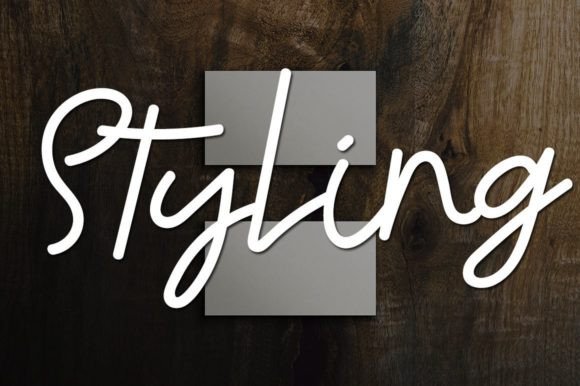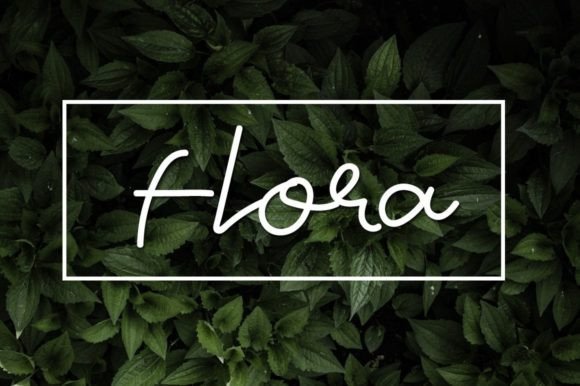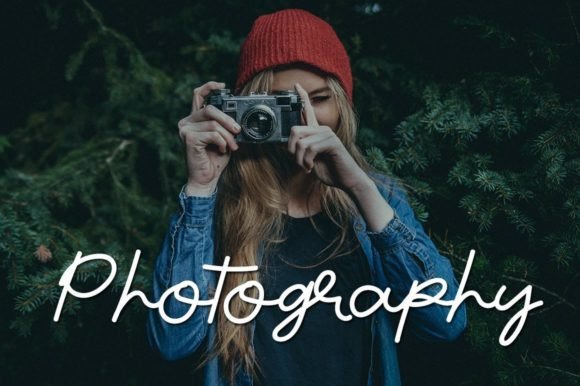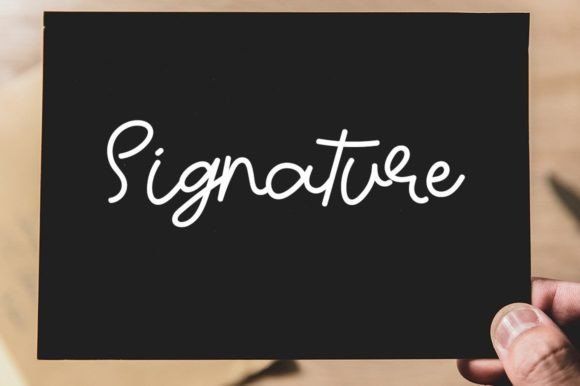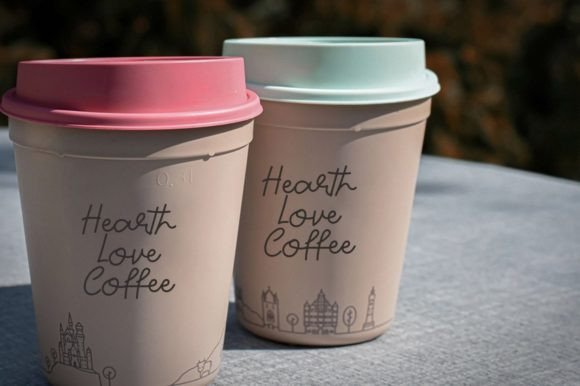
Introducing the Blue Butterfly Font: Elevate Your Designs with Elegance and Joy
In the world of design, fonts play a crucial role in conveying the tone and personality of a project. Whether you’re working on a formal or informal design, the right font can make all the difference. If you’re looking for a font that exudes freshness, cleanliness, and elegance, look no further than the Blue Butterfly Font. This beautiful and sweet font is designed to simplify your design process while adding a joyful touch to your creations.
The Characteristics of Blue Butterfly Font
The Blue Butterfly Font is a stunning typeface that boasts a range of characteristics that make it perfect for a variety of design projects. Some of its key features include:
- Fresh and Clean: The Blue Butterfly Font has a crisp and clean aesthetic that makes it perfect for designs that require a modern and sleek look.
- Elegant: With its smooth lines and curves, this font exudes elegance and sophistication, making it ideal for formal designs.
- Versatile: The Blue Butterfly Font can be used in a wide range of projects, from business cards and brochures to social media graphics and website headers.
- Joyful: The font’s playful and whimsical touch adds a joyful element to your designs, making it perfect for projects that require a bit of personality.
Why Choose Blue Butterfly Font?
So, why should you choose the Blue Butterfly Font for your next design project? Here are just a few reasons:
- Simplifies Design: The Blue Butterfly Font is designed to simplify your design process. Its clean and elegant aesthetic makes it easy to pair with other design elements, ensuring a cohesive look.
- Enhances Business Image: By using the Blue Butterfly Font, your business will look more beautiful and professional. This font is perfect for businesses that want to convey a sense of elegance and sophistication.
- Wide Range of Uses: The Blue Butterfly Font can be used in a variety of projects, from print materials to digital designs.
- Easy to Read: The font is highly legible, making it perfect for designs that require a lot of text.
How to Use Blue Butterfly Font in Your Designs
Using the Blue Butterfly Font in your designs is easy. Here are a few tips to get you started:
- Pair it with Other Fonts: The Blue Butterfly Font pairs well with a range of other fonts. Experiment with different combinations to find the perfect look for your design.
- Use it in Headings and Titles: The Blue Butterfly Font is perfect for headings and titles. Its elegant and playful aesthetic makes it a great choice for adding visual interest to your designs.
- Experiment with Colors: The Blue Butterfly Font looks great in a range of colors. Experiment with different colors to find the perfect look for your design.
In conclusion, the Blue Butterfly Font is a beautiful and sweet font that is perfect for designers and crafters looking to add a touch of elegance and joy to their designs. Its fresh, clean, and elegant aesthetic makes it versatile and easy to use in a wide range of projects. Whether you’re working on a formal or informal design, the Blue Butterfly Font is sure to simplify your design process and enhance your business image.